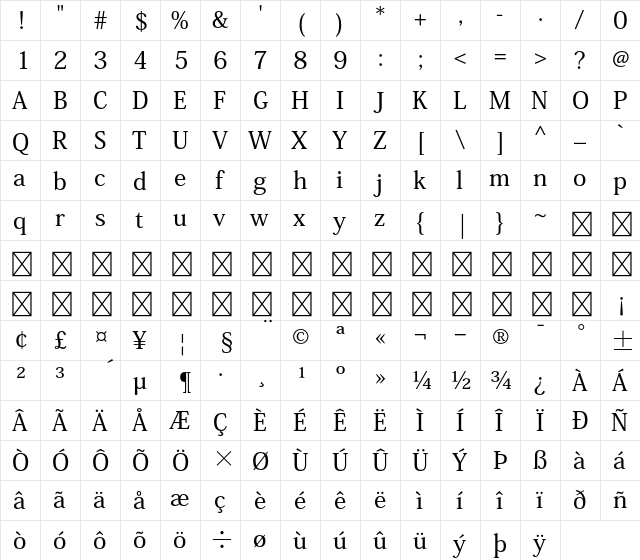
Kozuka Mincho Pro M Font Preview
Kozuka Mincho Pro M
| Designer | Masahiko Kozuka |
Design Context for Kozuka Mincho Pro Typeface
Kozuka Mincho Pro takes a measured approach to typography — its balanced proportions and neutral character make it a reliable workhorse for both digital and print work.